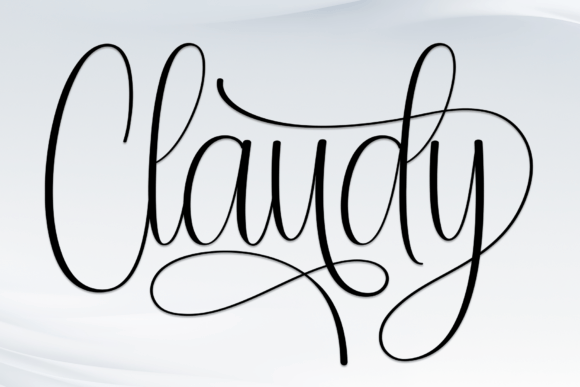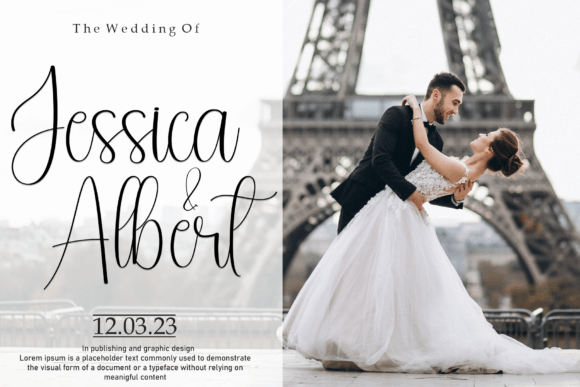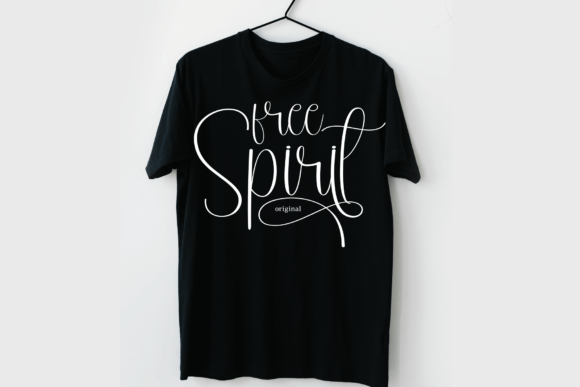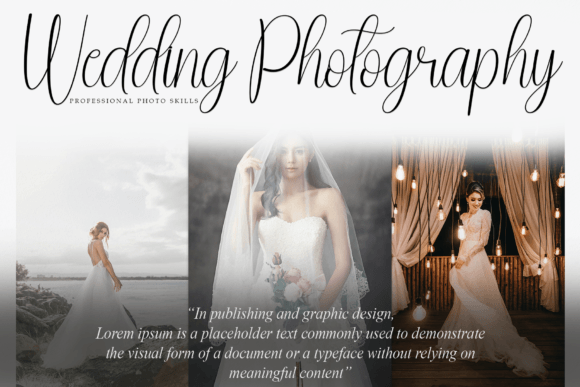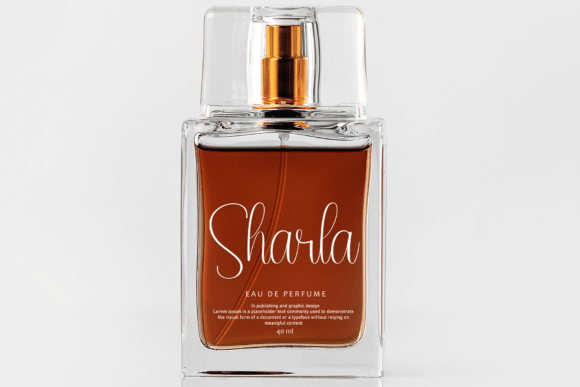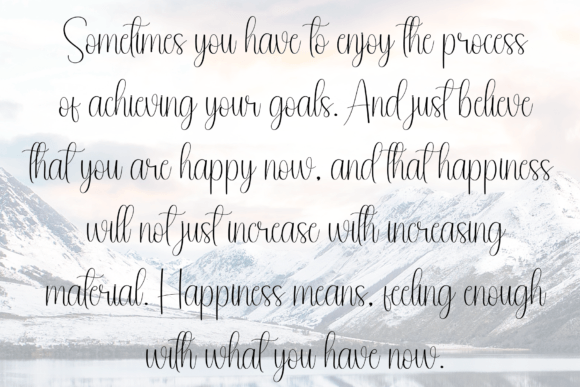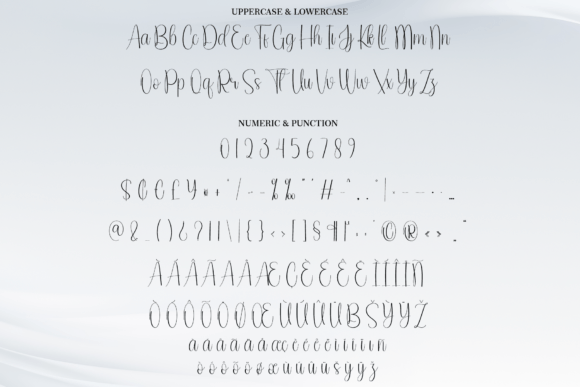
The Perfect Touch: Claudy Font
Have you ever stumbled upon the perfect font while working on a design project, and suddenly everything falls into place? That’s exactly what happened when designers discovered Claudy Font. This charming handwritten font is more than just a pretty face – it’s a game-changer for any project that needs a touch of warmth and personality.
Whether you’re crafting wedding invitations, designing greeting cards, or working on any other project that requires a delicate balance of elegance and informality, Claudy Font is the perfect addition. Its fresh and casual vibe is sure to captivate your audience and leave a lasting impression. For designers, Claudy Font is a valuable asset that can elevate any design and make it truly special.
Claudy Font Key Features
- Font Style: Script, Calligraphy
- Unique Characteristics: Elegant, cursive script with intricate details and flourishes, ideal for titles, headings, and decorative text
- Language Support: Multilingual support for most languages using the Latin alphabet
Claudy Font Review
Overall, I’m quite impressed with Claudy Font. Here are some of its standout features: ✨
- Playful and elegant script, perfect for invitations, posters, and other creative projects.
- Highly legible, making it suitable for both digital and print use.
- Great for adding a touch of sophistication and whimsy to your designs.
- Not ideal for body text due to its script nature.
- May require additional spacing adjustments in certain contexts.
- Supports only basic languages, so it may not be suitable for multilingual projects.
Overall, I’d give Claudy Font a solid 4 out of 5 stars. It’s a versatile and visually appealing font that excels in creative and decorative applications. While it may not be perfect for every project, its strengths far outweigh its limitations. If you’re looking for a unique and elegant script font, Claudy is definitely worth considering.
For best results, use Claudy Font for headings and titles to add a touch of elegance to your design.
For best results, pair Claudy Font with a clean and simple design to let the font be the focal point.
Use Claudy Font for:
– Headings and titles to add a touch of elegance and sophistication.
– Body text to create a clean and modern look.
– Logos and branding materials to establish a consistent visual identity.
– Pair Claudy Font with a simple and clean design to let the font be the focal point.
Alternatives to Claudy Font
Playfair Display is a high-end serif font ideal for creating elegant and luxurious designs. It is perfect for use in titles, headings, and other prominent text elements. When to use: Luxury brands, high-end fashion, and premium products.
Comparison to Claudy Font: While Claudy Font has a more vintage feel, Playfair Display is more modern and sophisticated. Playfair Display has a stronger emphasis on elegance and refinement, making it a better choice for high-end designs.
Pacifico is a beautiful script font that evokes a sense of relaxation and calmness. It is perfect for use in branding, packaging, and other design elements where a friendly and approachable tone is desired. When to use: Beach resorts, wellness brands, and outdoor products.
Comparison to Claudy Font: While Claudy Font has a more playful and whimsical feel, Pacifico is more laid-back and casual. Pacifico is a better choice for designs that require a sense of relaxation and tranquility.
Great Vibes is a modern script font that exudes a sense of excitement and energy. It is perfect for use in branding, advertising, and other design elements where a dynamic and attention-grabbing tone is desired. When to use: Tech startups, sports brands, and energetic products.